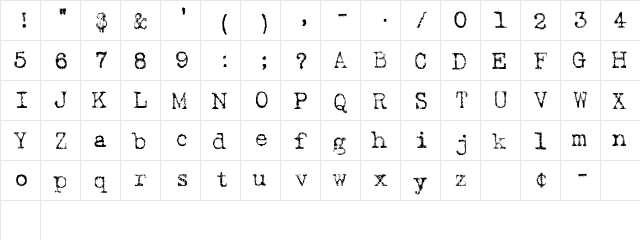
Batik Regular Regular
Design Context for Batik Regular Typeface
Batik Regular is a composed and adaptable typeface that performs quietly and consistently across a wide range of design contexts.